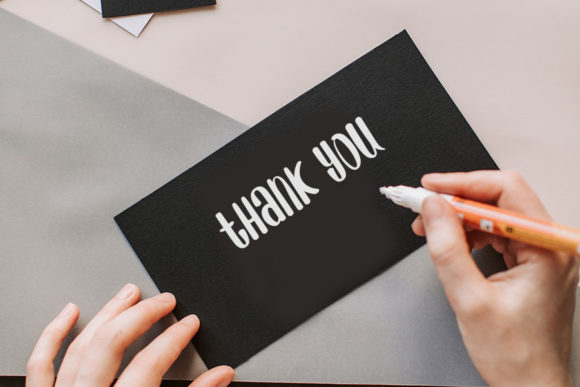
Introduction to Shopee Font
Have you ever stumbled upon the perfect font that makes your creative project come alive? For designers, finding the right font can be the game-changer that elevates their work from good to great. It’s that moment when you know you’ve found a design resource that’s going to make your life easier and your work more engaging. That’s exactly what happened when I discovered the Shopee Font – a fun and trendy handwritten font that embodies playfulness and authenticity.
With its high-quality design and transparent background, the Shopee Font is perfect for any creative project that requires a personal touch. Whether you’re crafting greeting cards, designing digital presentations, or working on a fun project with friends, this font is sure to add a unique and playful flair to your work.
Shopee Font
- Comes with a transparent background for easy customization
- Includes a range of stylish and modern font styles suitable for various designs
- Supports multiple languages, making it a versatile design resource
Honest Review: Shopee Font
As a designer, I’ve come across many design resources that promise a lot but deliver little. However, the Shopee Font is a different story altogether. I was impressed with its clean design and versatility, making it a great addition to any creative project.
What works well with the Shopee Font is its ability to be customized to suit various design needs. It’s available for free download and comes in a range of styles and weights, allowing designers to experiment with different looks and feels. I also appreciate the transparent background, which makes it easy to layer and manipulate the font in graphic design software.
- ✨ Clean and modern design
- ✨ Versatile and customizable
- ✨ Transparent background for easy manipulation
However, there are a few limitations to the Shopee Font. The font family is relatively small, and it may not be suitable for large-scale design projects that require a more extensive range of fonts.
Overall, I’m impressed with the Shopee Font and would recommend it to designers looking for a high-quality, free design resource. While it may have its limitations, it’s a great starting point for any creative project.
How to Use Shopee Font
The Shopee Font is a high-quality design resource that can elevate any creative project. With its sleek and modern design, it’s perfect for e-commerce businesses, social media, and more.
The Shopee Font is commonly used in:
- E-commerce websites and social media platforms.
- Marketing materials such as brochures and flyers.
- Branding and logo design.
Alternatives to Shopee Font
Open Sans is a popular, high-quality font that is perfect for a wide range of creative projects, including logos, brochures, and websites. It features a clean and modern design that works well with transparent backgrounds. Open Sans is a free download and can be used for both personal and commercial projects.
Compared to Shopee Font, Open Sans has a more modern and sophisticated look, making it ideal for high-end designs. However, it lacks the bold and playful feel of Shopee Font, which is perfect for more casual and creative projects.
Lato is a sans-serif font that is designed for digital use, making it perfect for websites, mobile apps, and other digital projects. It features a clean and modern design with a high level of readability, making it ideal for body text and headings. Lato is a free download and can be used for both personal and commercial projects.
Yes, the Shopee Font features a transparent background, making it ideal for use in designs that require a clean and minimalist aesthetic. This feature allows designers to easily overlay the font on top of images or other design elements without any distracting backgrounds.